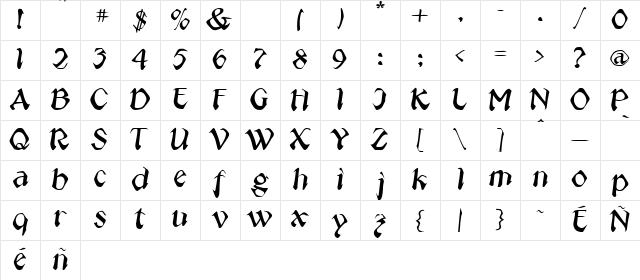
Jeepney Utility Jeepney
Design Context for Jeepney Typeface
Jeepney is a composed and adaptable typeface that performs quietly and consistently across a wide range of design contexts.